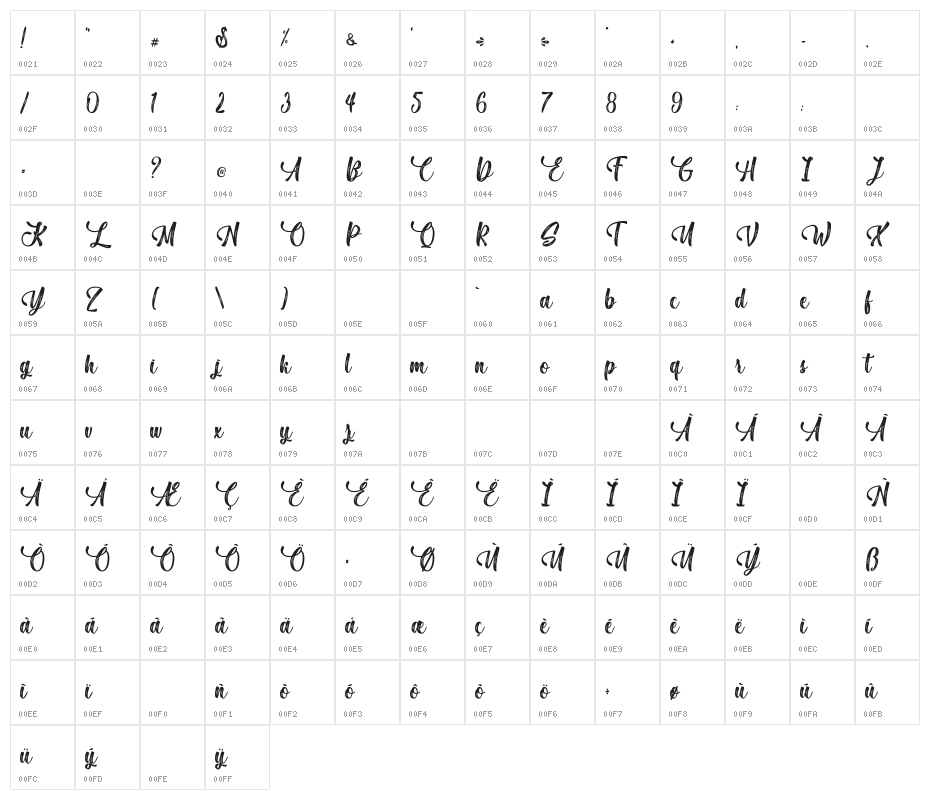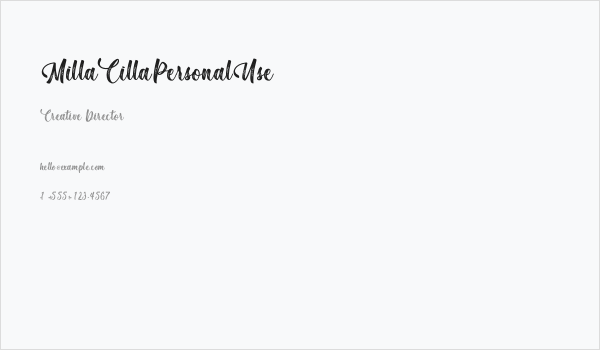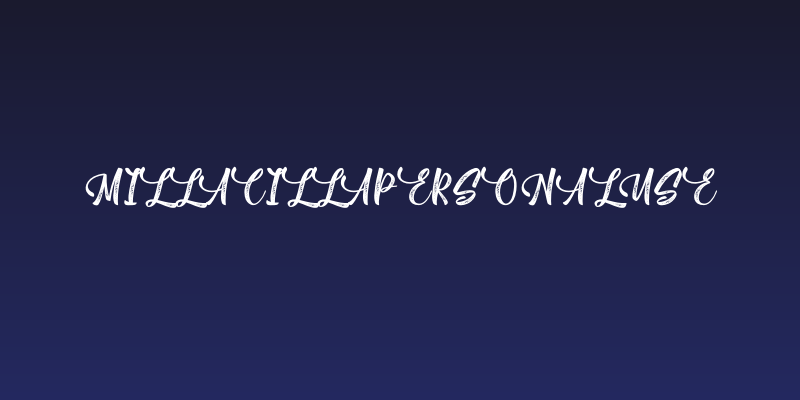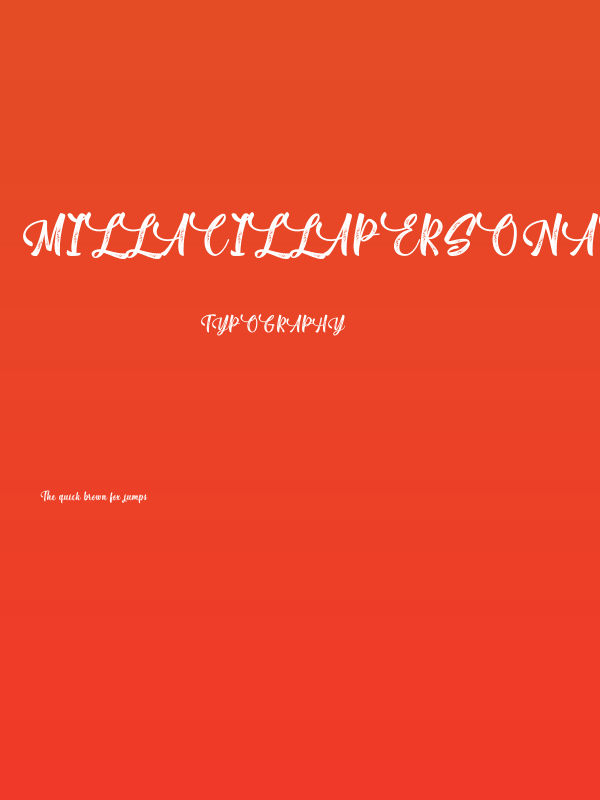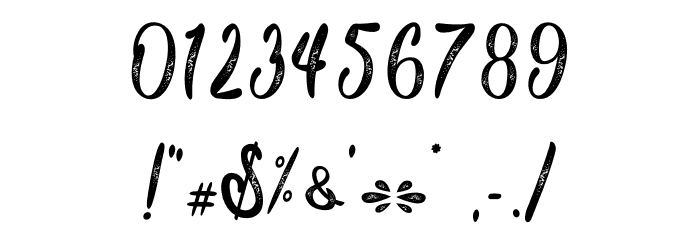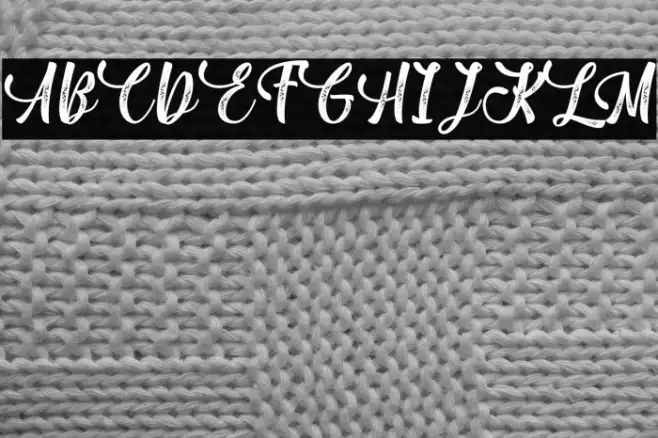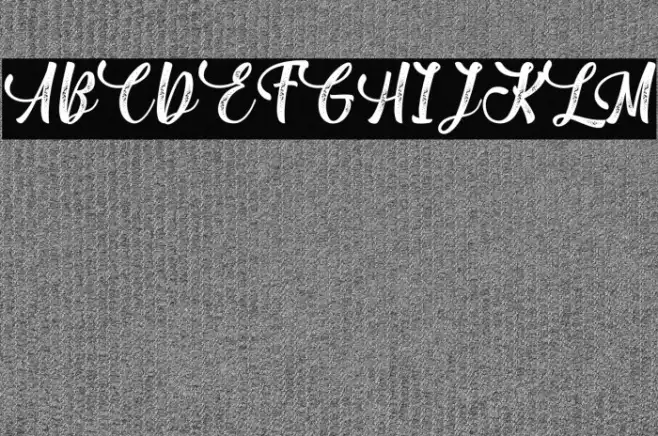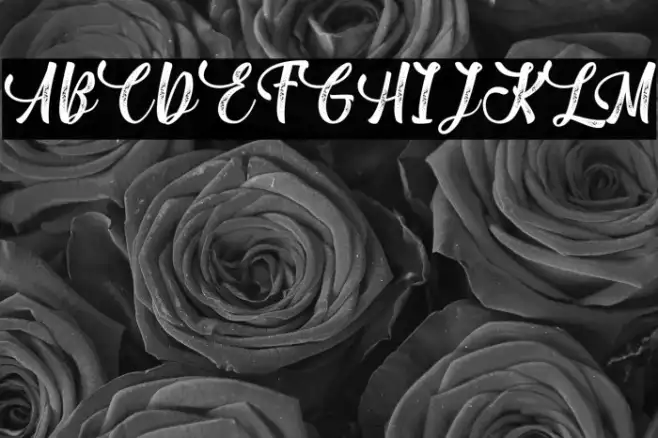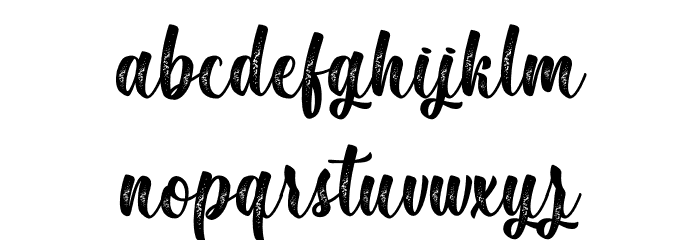
MillaCillaPersonalUse Font
MillaCillaPersonalUse Description
This font features a bold and expressive script style with a hand-drawn appearance. The letters are connected with smooth, flowing strokes, giving it a dynamic and lively feel. The uppercase letters are slightly more elaborate, with decorative swashes and loops, while the lowercase letters maintain a consistent, cursive style. The numbers and special characters are designed to match the overall aesthetic, providing a cohesive look across all glyphs. The texture of the font adds a rustic, handcrafted touch, making it suitable for projects that require a personal or artistic flair.
| Font Family | Milla Cilla - Personal Use |
| Proposed Projects | Ideal for wedding invitations, greeting cards, branding projects, and artistic posters. |